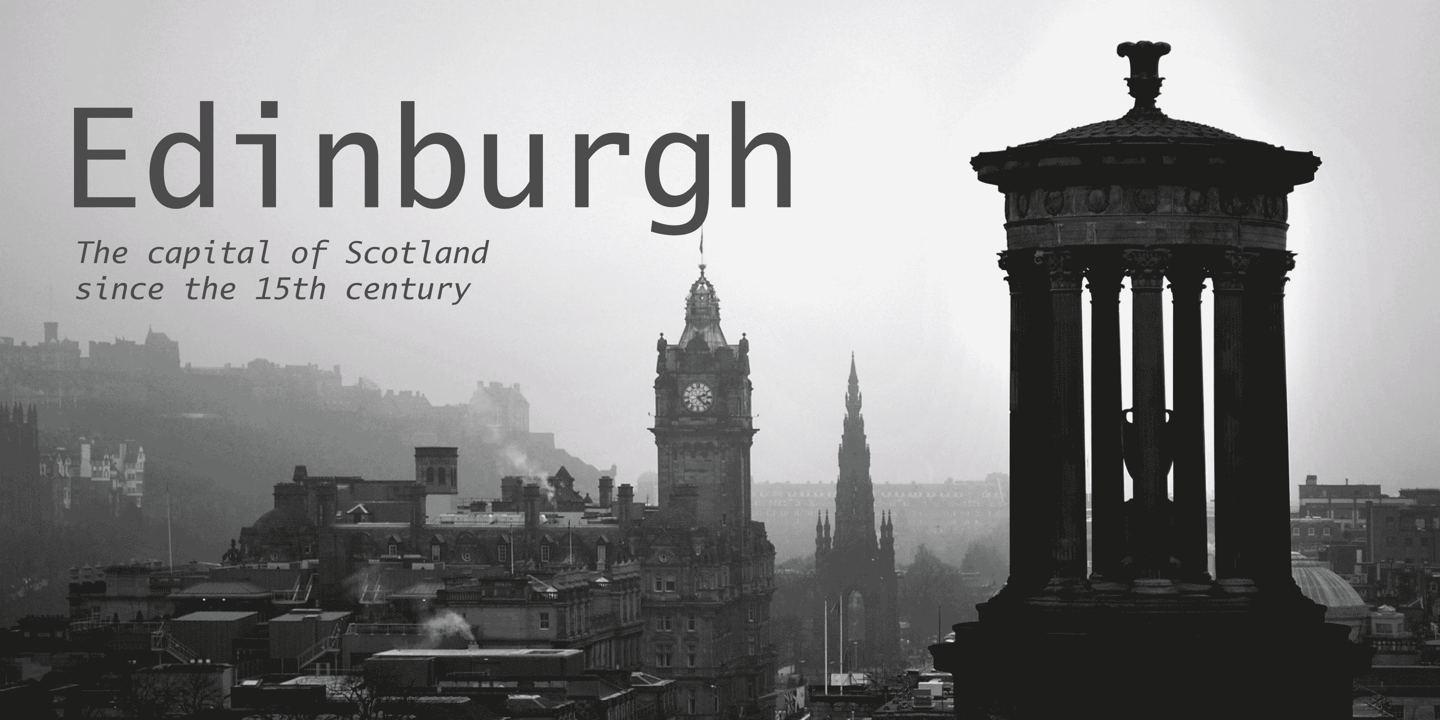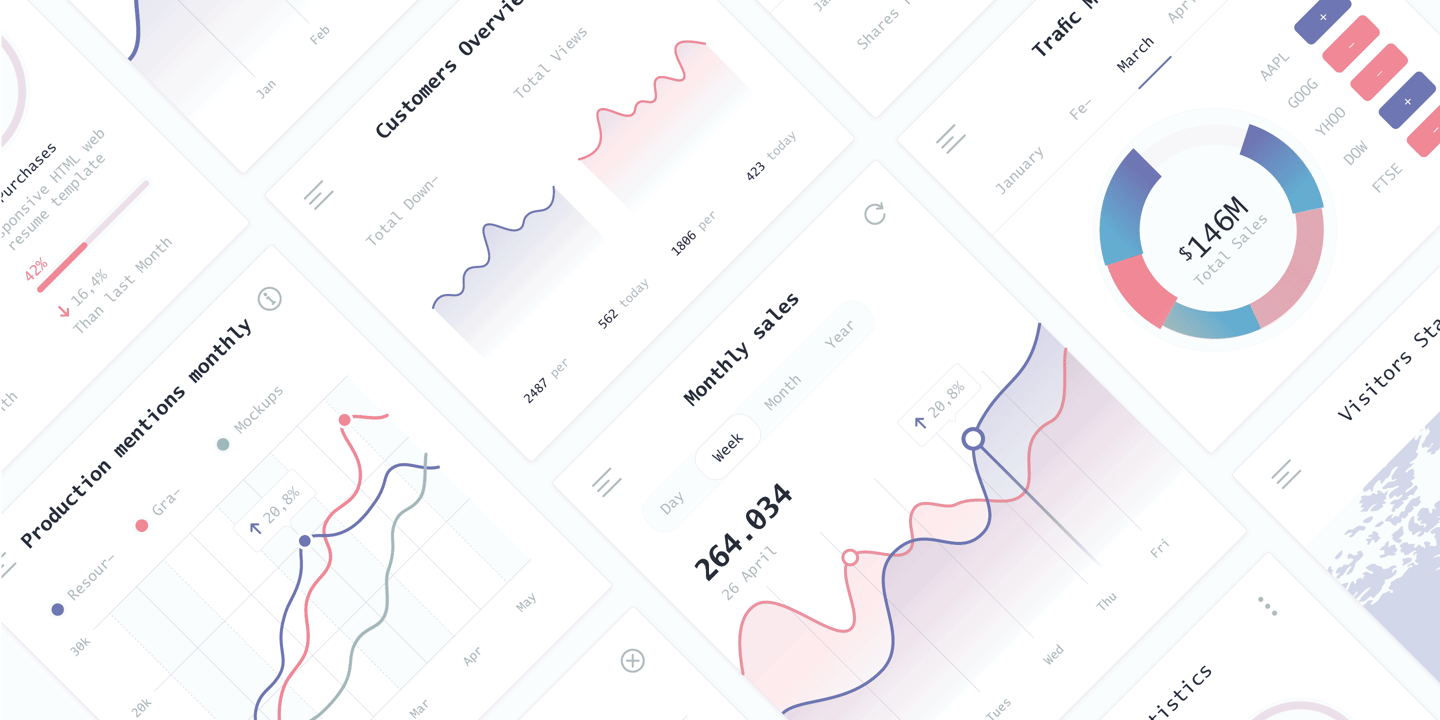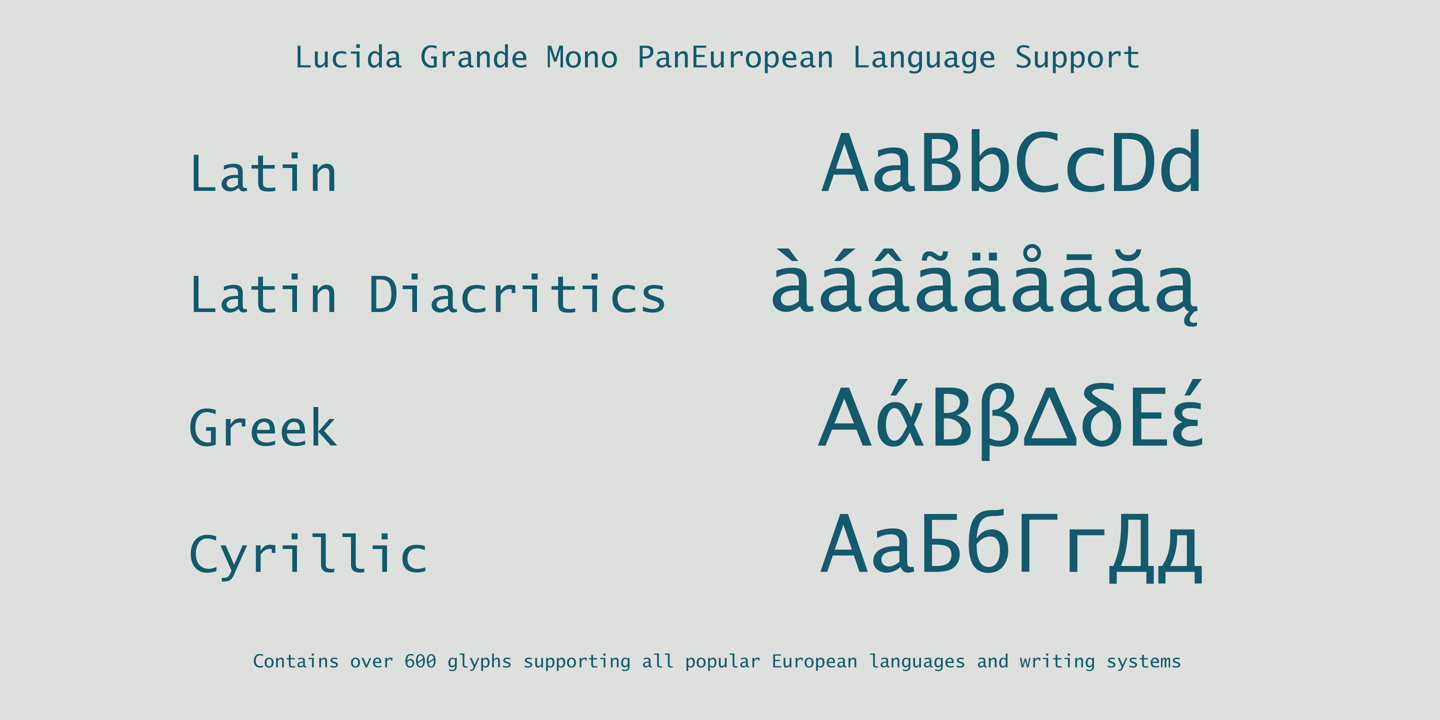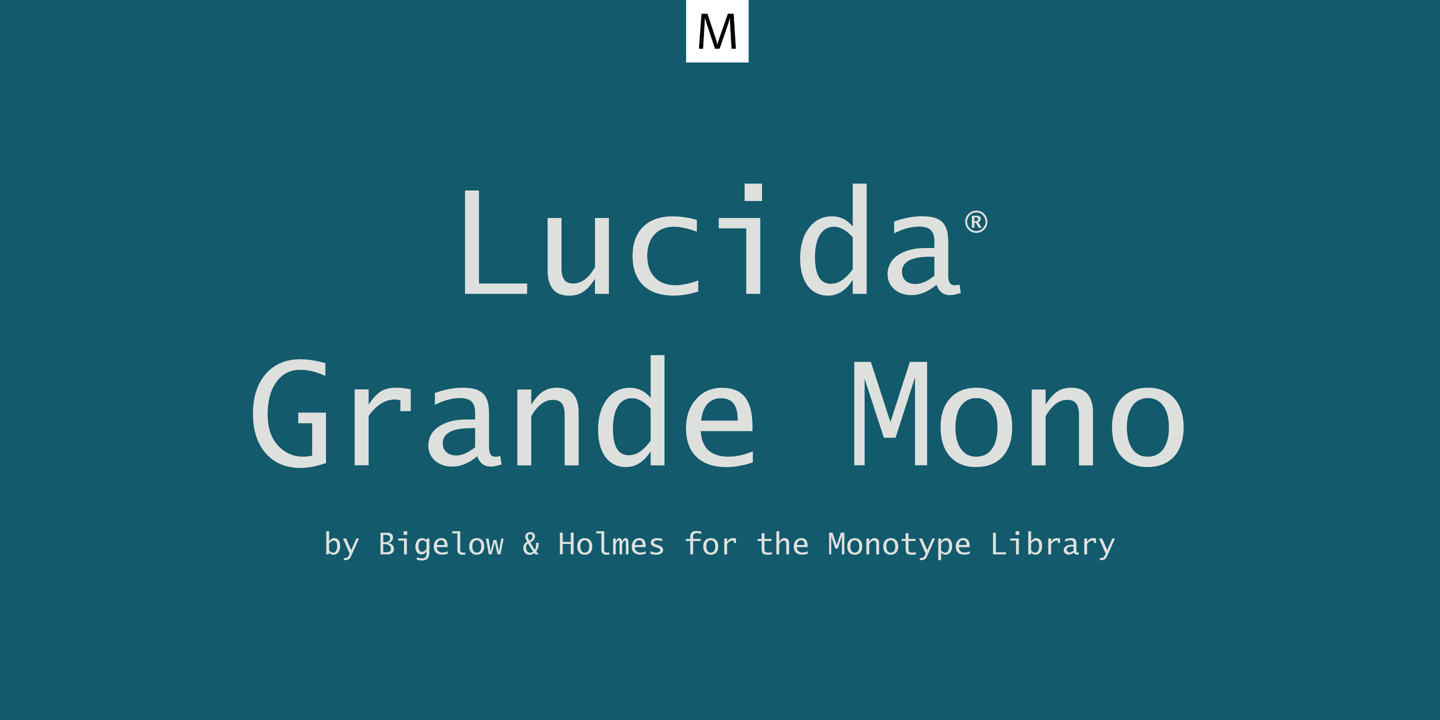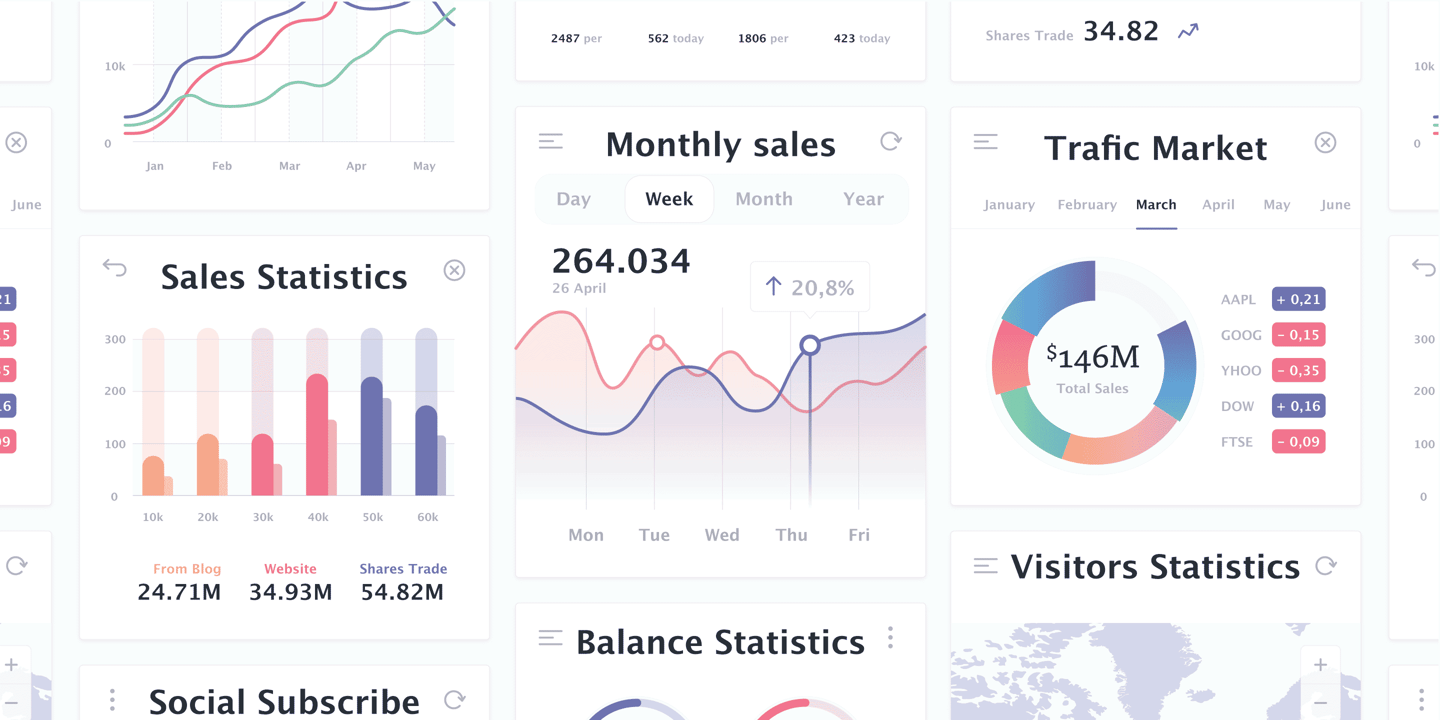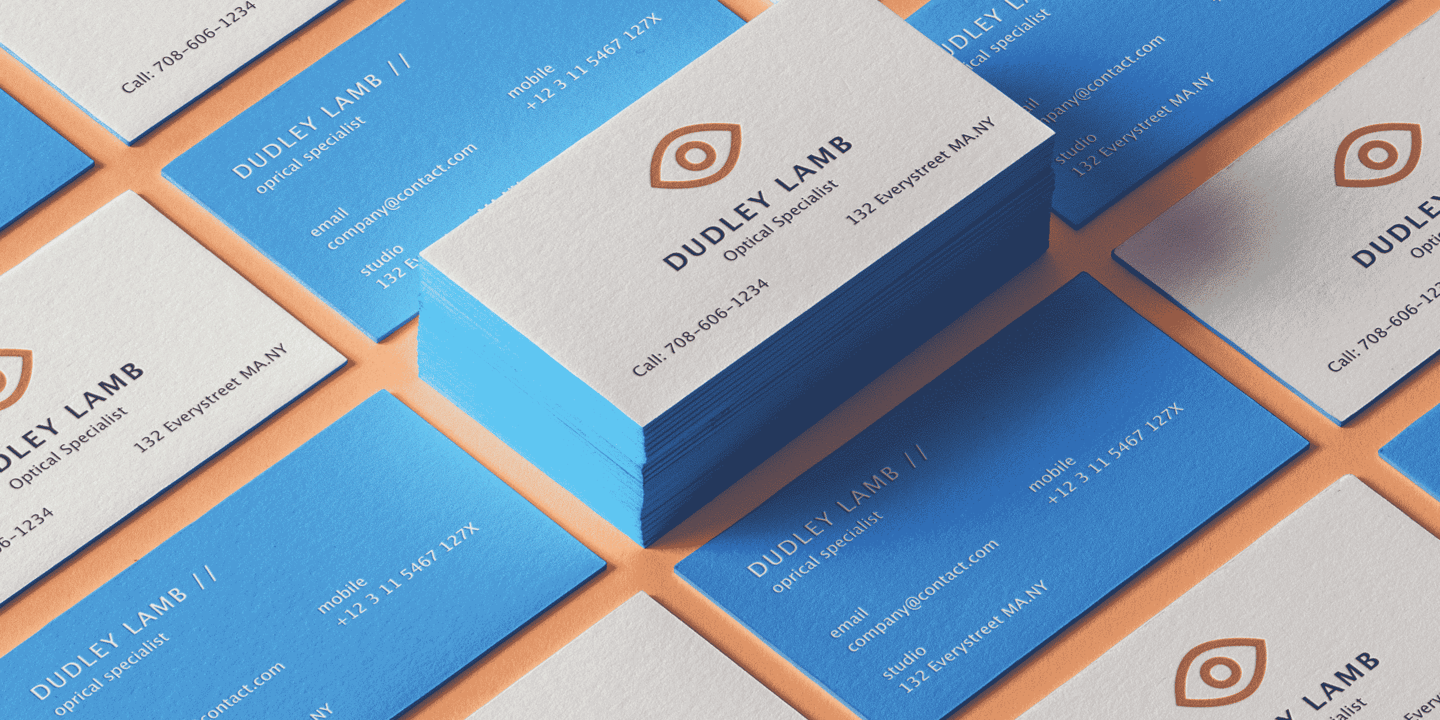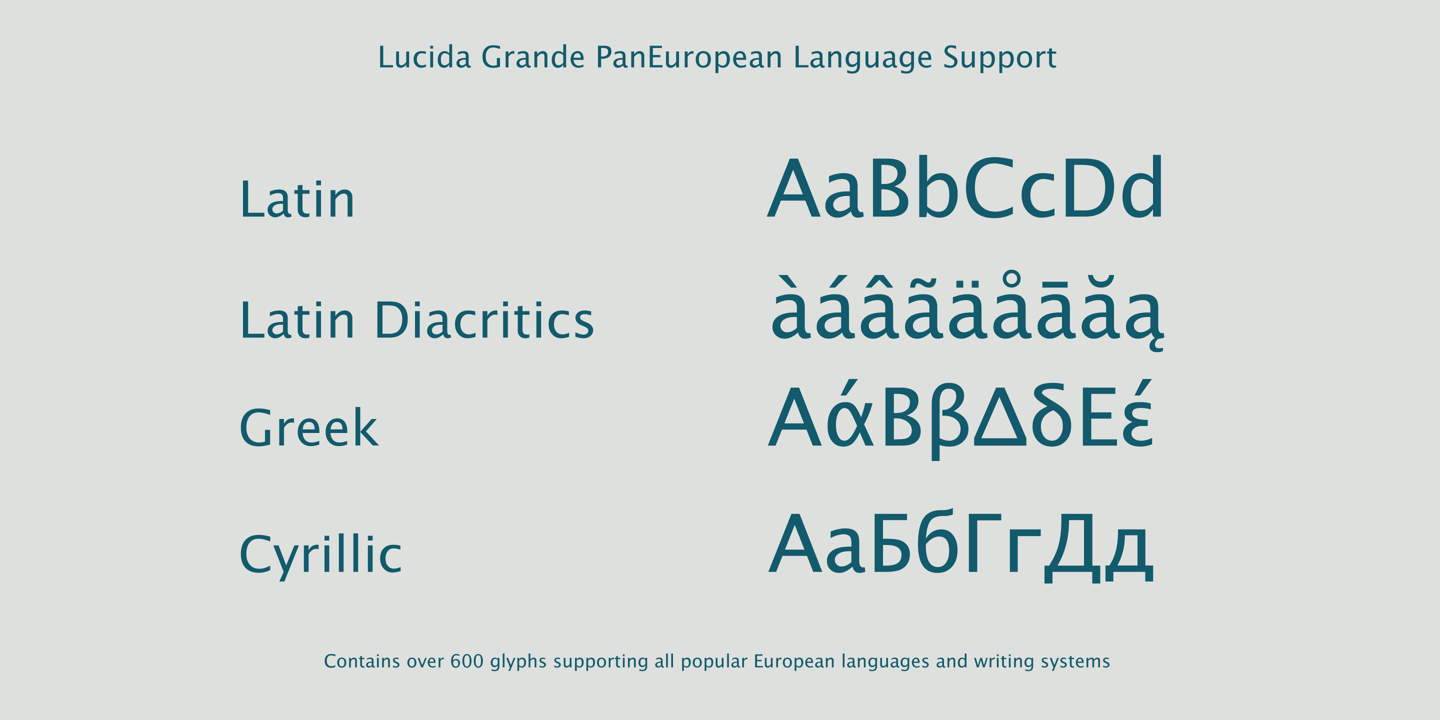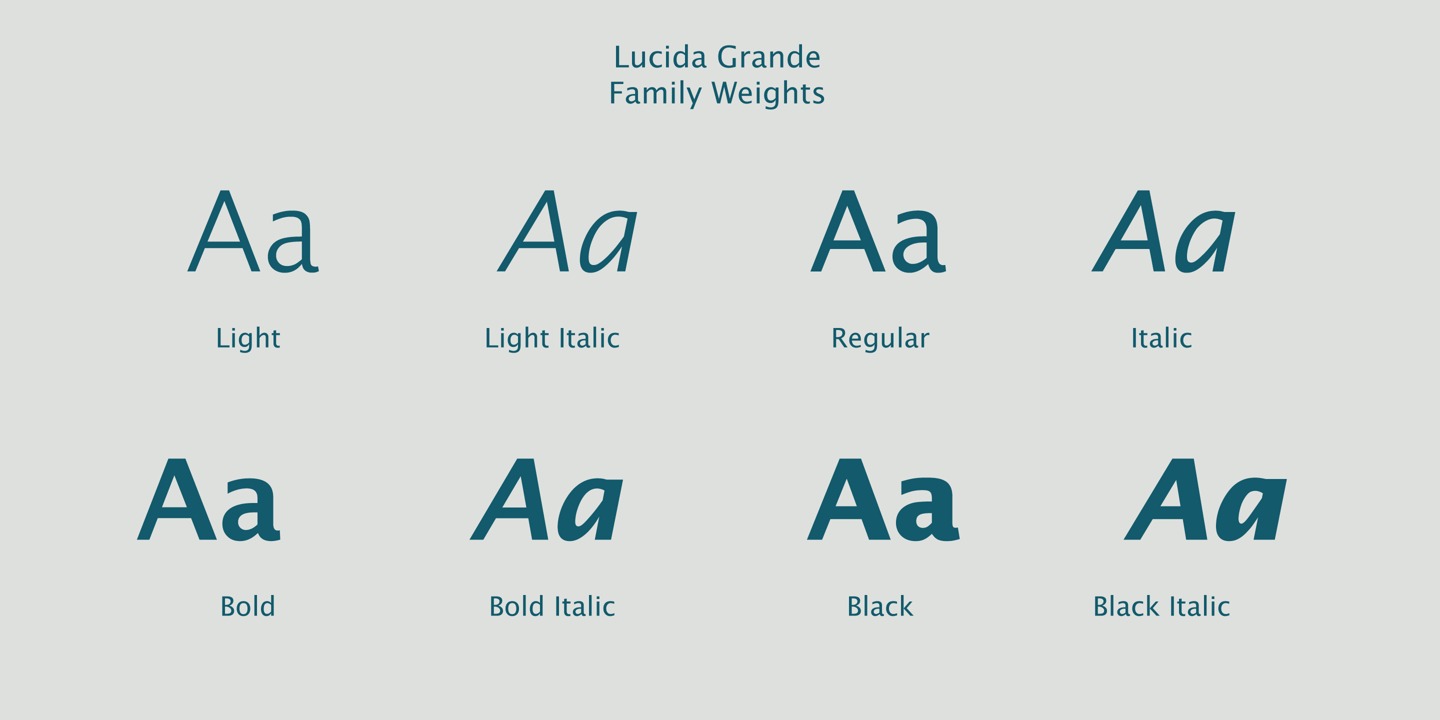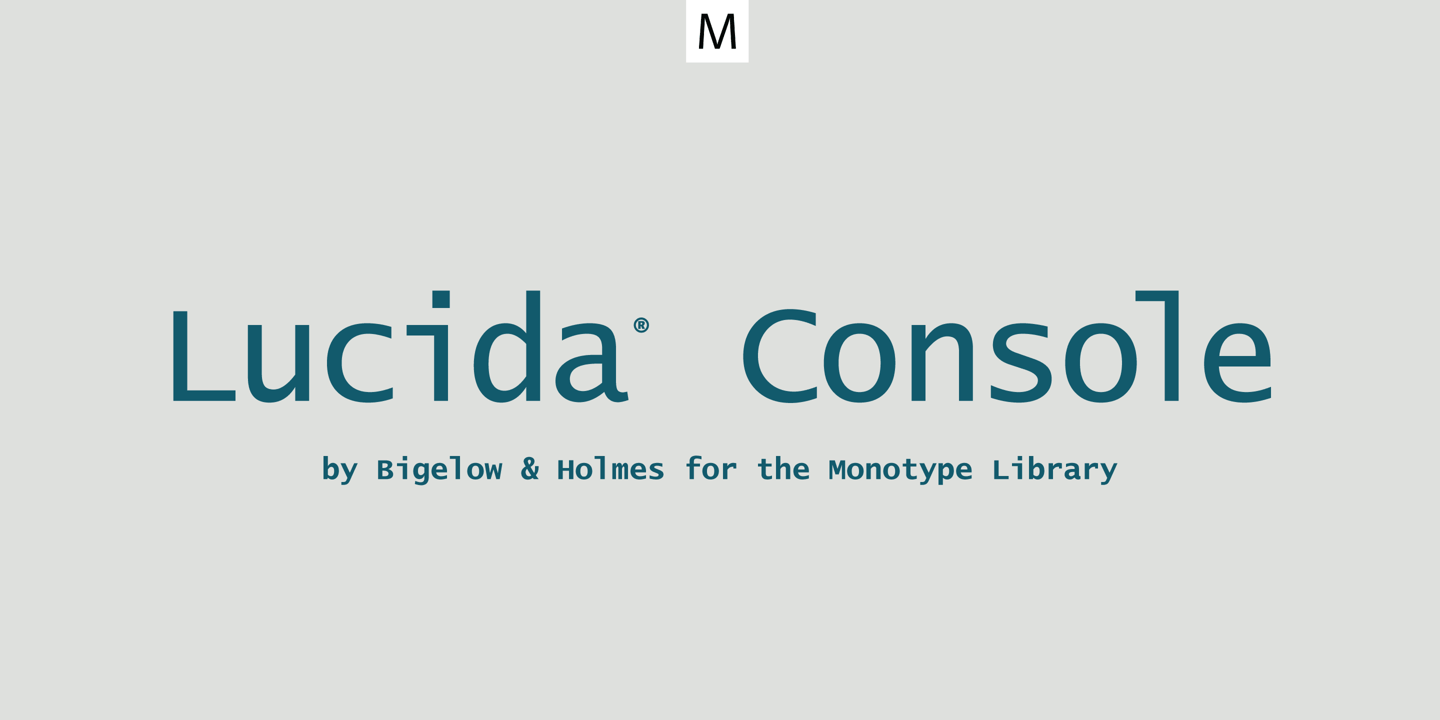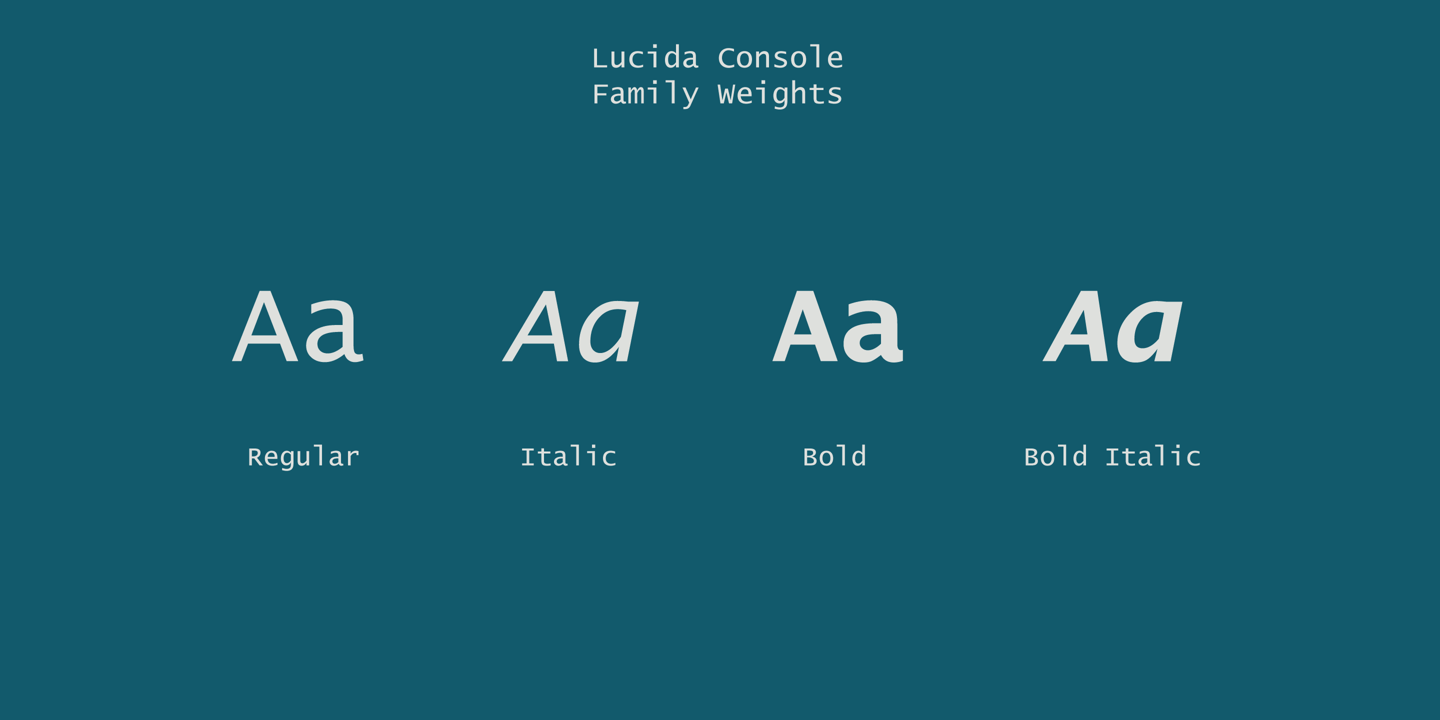
Kris Holmes of United States of AmericaBorn: Reedly, California, 1950 Contemporary American type designer and President of Bigelow & Holmes alongside Charles Bigelow. The pair co-designed the Lucida font family targeted at low-resolution, and the pi font Wingdings. Kris Holmes herself has had a hand in the design of over 90 typefaces, including the “city” fonts (Chicago, Geneva, Monaco, New York) for Apple. Fonts by Kris HolmesCapitals, Chicago, Geneva, ITC Isadora, URW Kolibri, Lucida, Lucida Blackletter EF, Lucida Bright EF, Lucida Bright, Lucida Calligraphy EF, Lucida Casual EF, Lucida Console, Lucida EF, Lucida Fax EF, Lucida Handwriting EF, Lucida Math, Lucida Mono EF, Lucida Sans EF, Lucida Sans, Lucida Sans Typewriter, Lucida Typewriter EF, Lucida Typewriter, Monaco, New York, Shannon, Sierra, Wingdings, Wingdings Browse all fonts by Kris Holmes Activities Related Links